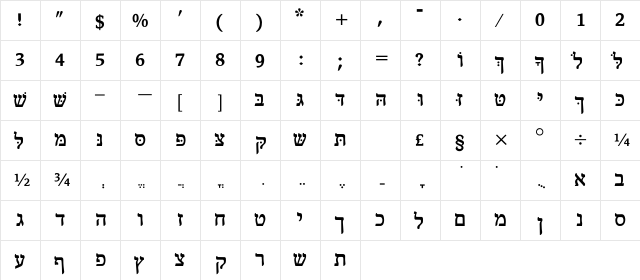
Dor Regular
Design Context for Dor Regular Typeface
Dor Regular offers clean, dependable letterforms without strong stylistic allegiance, making it a practical choice for designers who need flexibility.